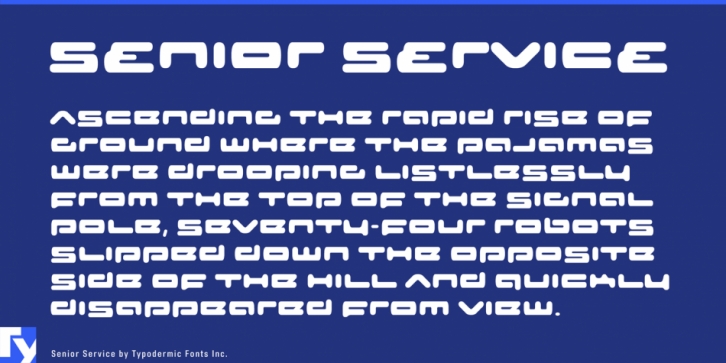
Senior Service is a display sans font published by Typodermic Fonts Inc.
Senior Service is a sedulous 1990s style techno/industrial headline grease-gun.